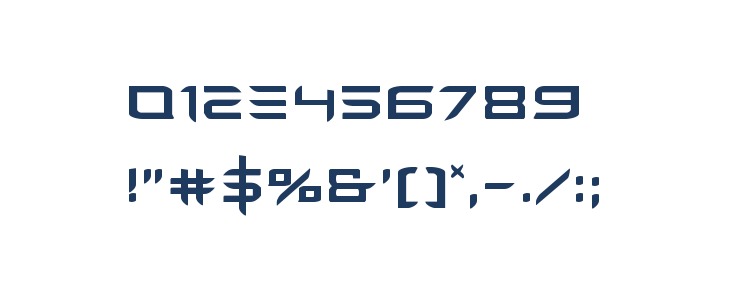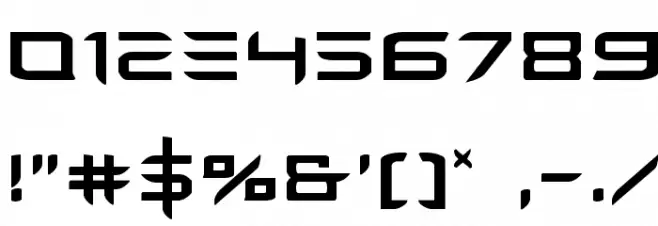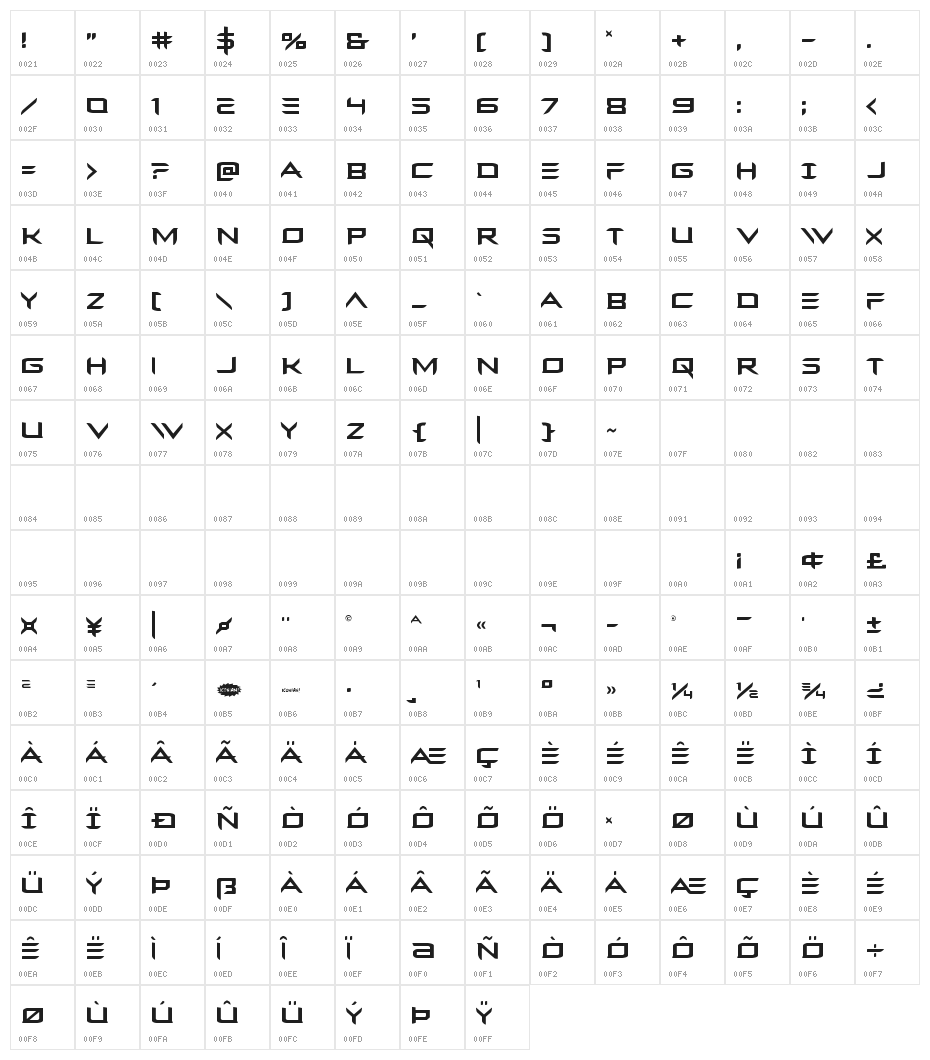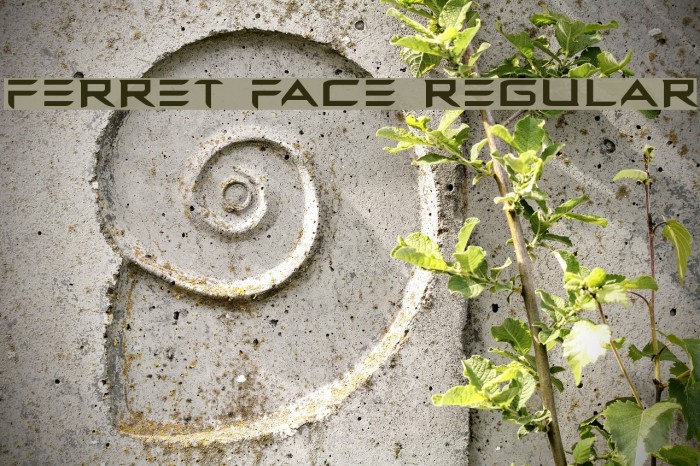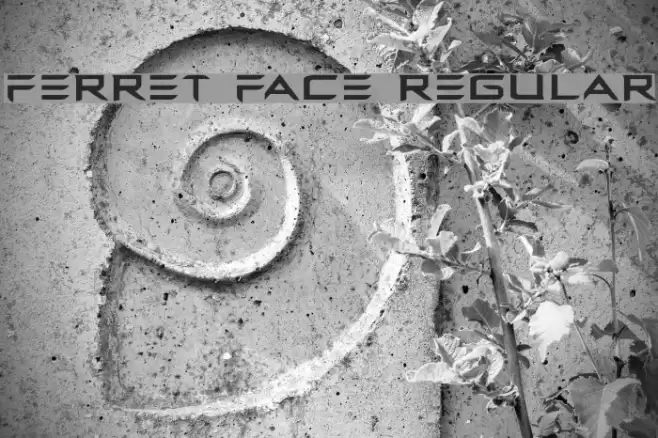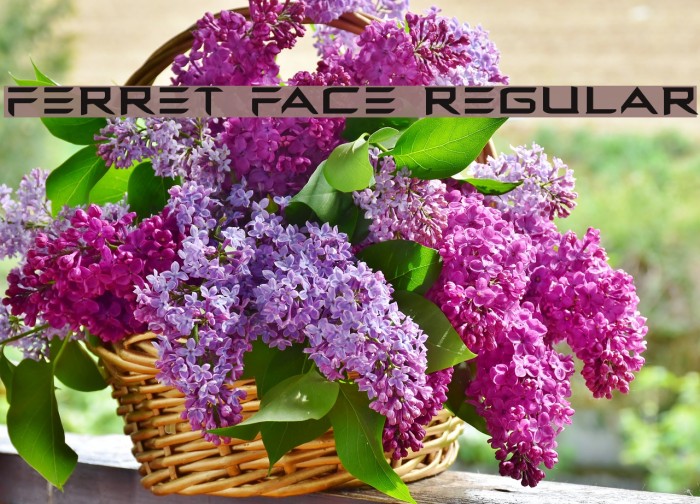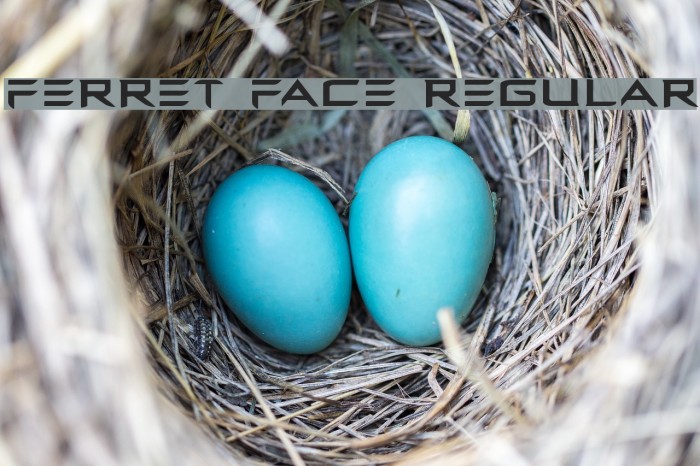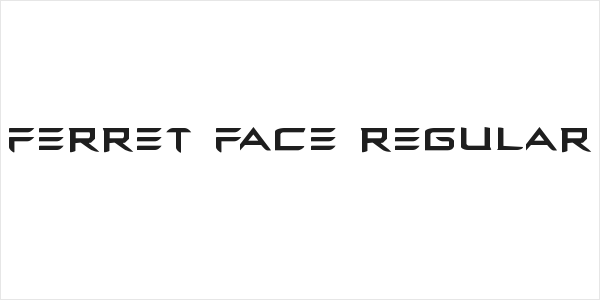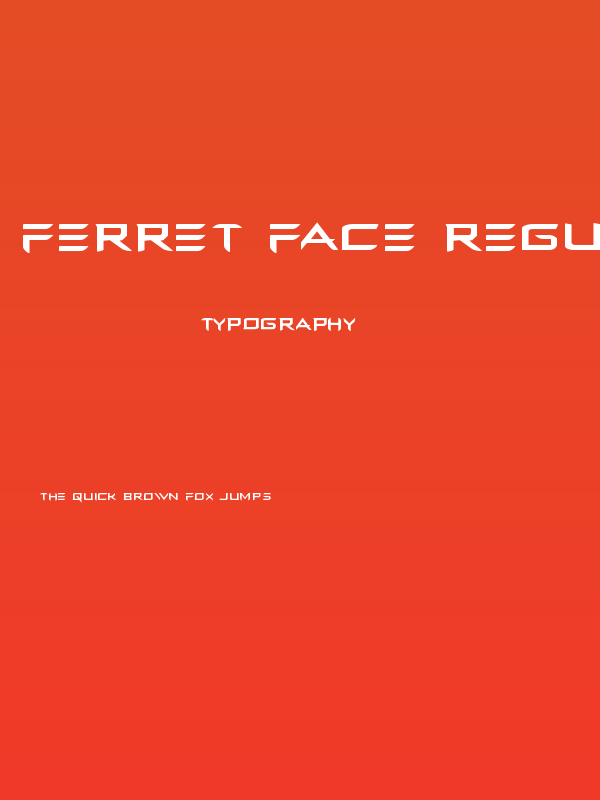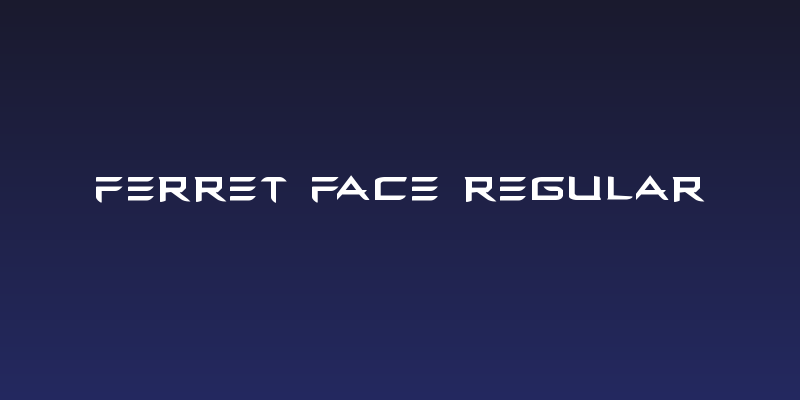
Ferret Face Regular Font
Ferret Face Regular Description
This font features a futuristic and angular design, characterized by sharp edges and geometric forms. The uppercase letters are bold and distinct, with a unique style that incorporates cut-out sections and diagonal lines, giving it a dynamic and modern appearance. The lowercase letters maintain the same angular aesthetic, ensuring consistency throughout the typeface. The numerals are equally stylized, with a sleek and contemporary look that complements the overall design. Special characters are crafted with precision, maintaining the font's cohesive futuristic theme. This typeface is ideal for projects that require a modern and edgy feel, such as technology branding, sci-fi themes, or innovative product designs.
| Proposed Projects | Ideal for technology branding, sci-fi themes, and innovative product designs. |